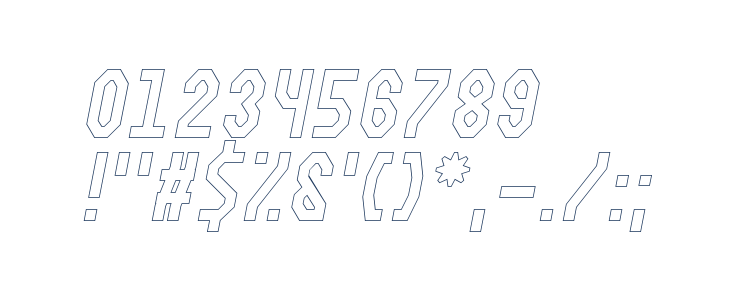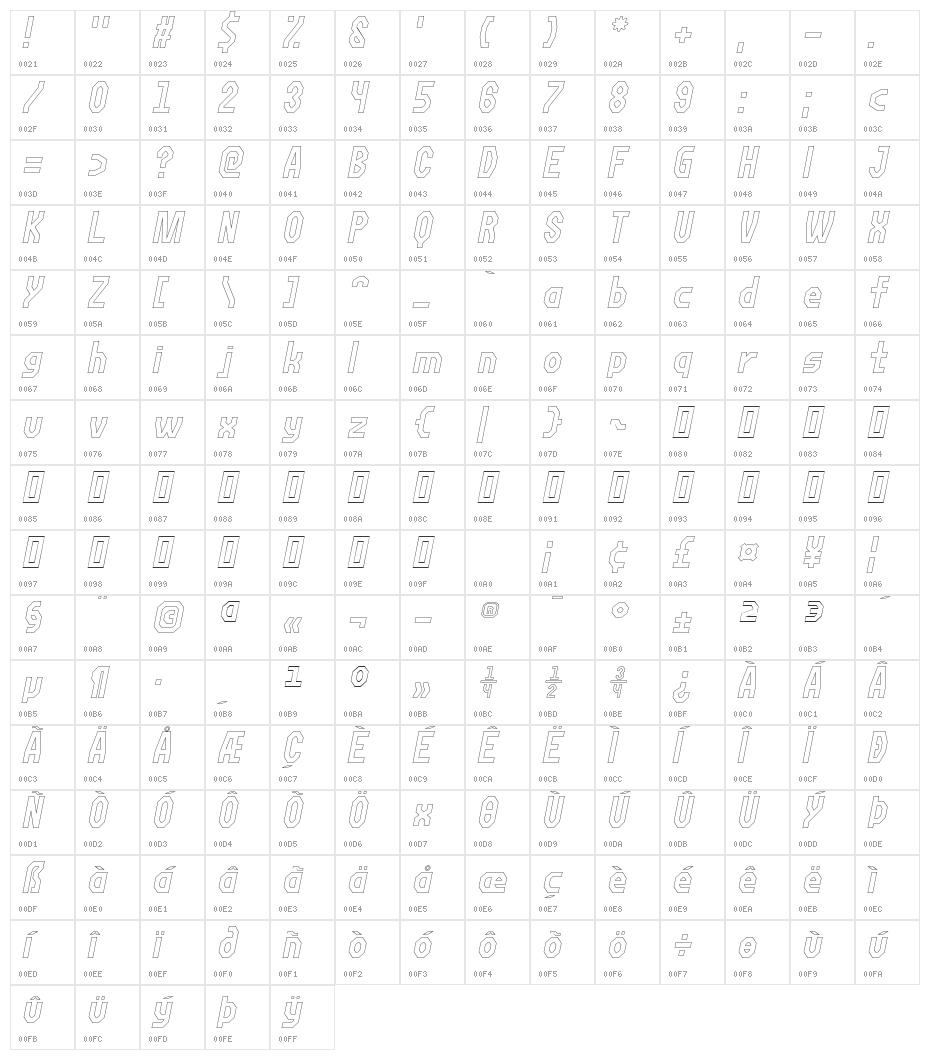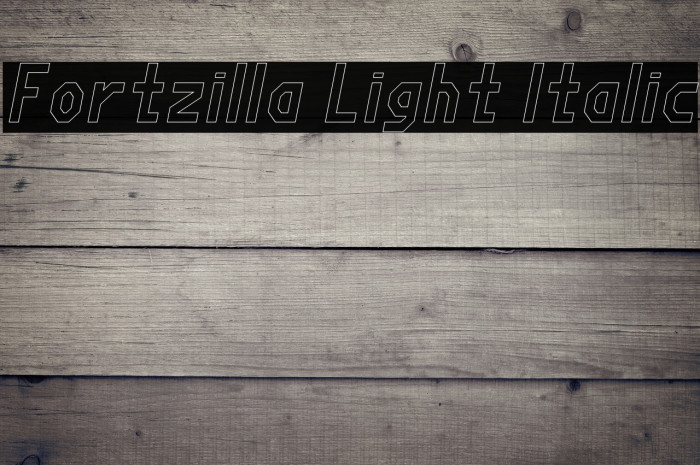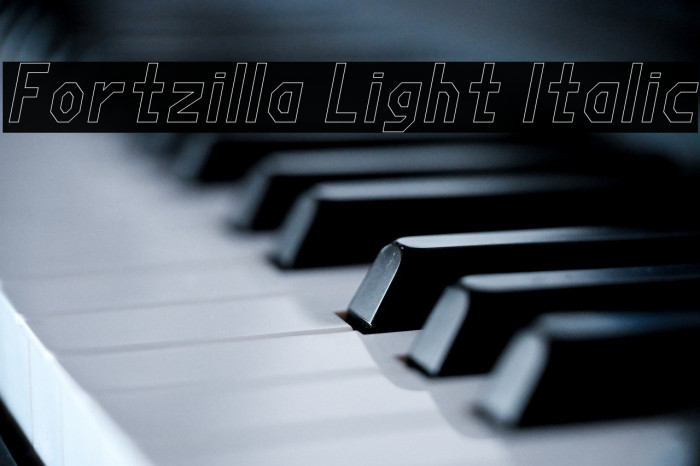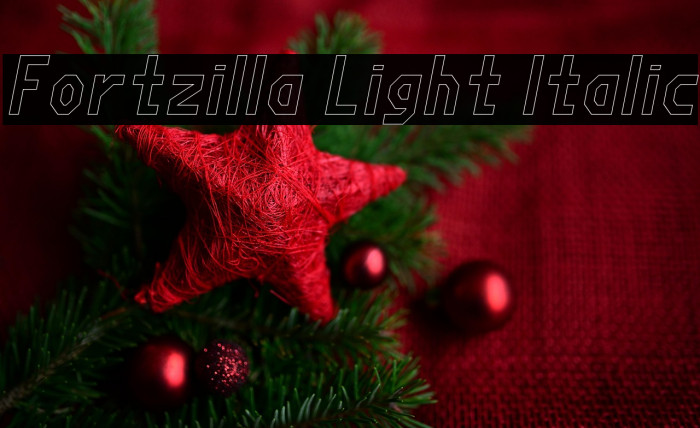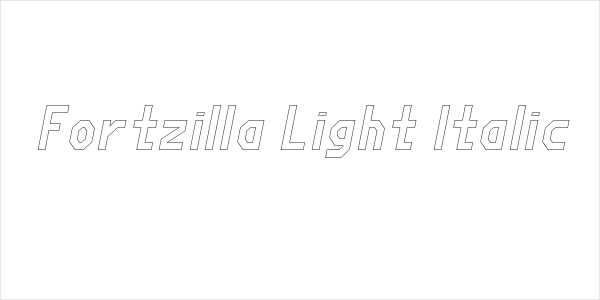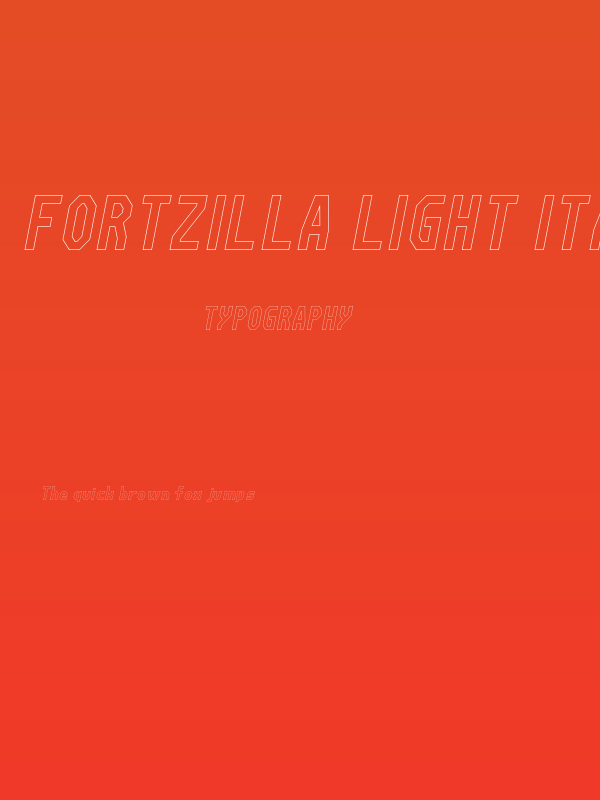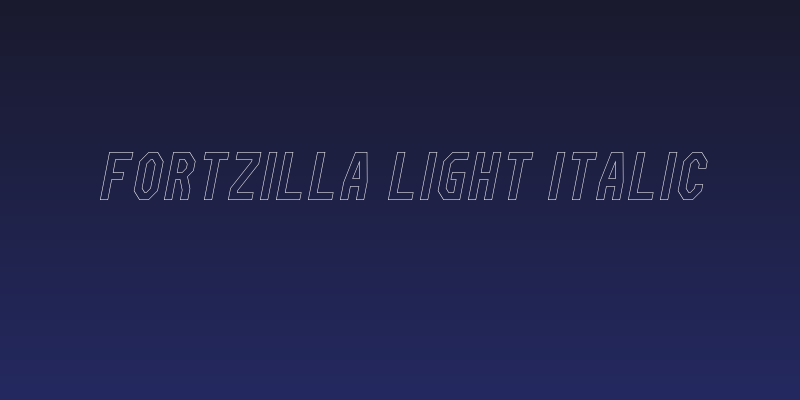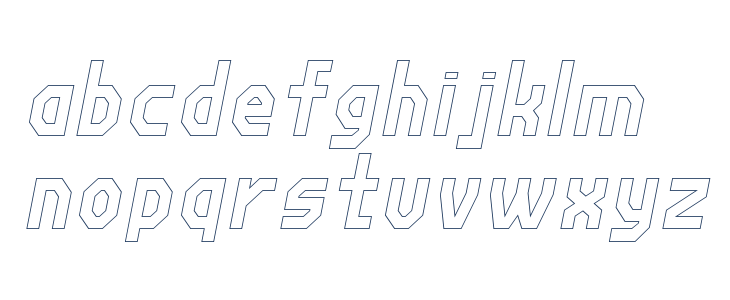
Fortzilla Light Italic Font
Fortzilla Light Italic Description
This font features a modern, geometric design with a distinct italic slant, giving it a dynamic and forward-moving appearance. The characters are outlined, creating a hollow effect that adds a unique visual interest. The uppercase and lowercase letters maintain a consistent style, with sharp angles and clean lines. The numerals and special characters follow the same design principles, ensuring uniformity across all glyphs. This font's open structure and italicized form make it suitable for projects that require a contemporary and energetic look.
| Proposed Projects | Ideal for branding, posters, and digital media where a modern and dynamic style is desired. |